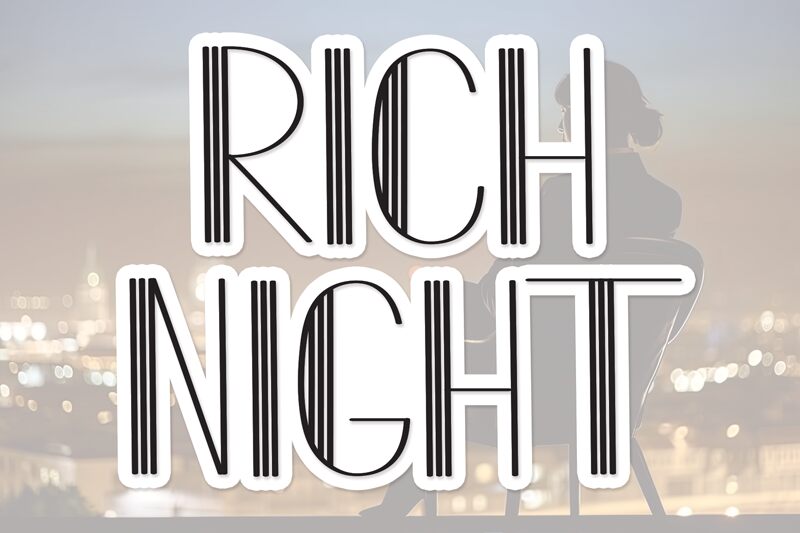
Rich Night
Rich Night font, designed by Scratchones, embodies a striking retro style that captures attention with its unique aesthetic. The condensed form gives it a sleek appearance, allowing it to make a bold statement without overwhelming the viewer. This font resonates with nostalgia while simultaneously offering modern versatility, making it suitable for a variety of design contexts.
Its clean lines and distinctive character add an element of sophistication to any project. Ideal for branding, poster designs, and signage, Rich Night thrives in environments that crave visual impact. Whether used for vibrant marketing campaigns or minimalist artistic expressions, this font stands out beautifully while maintaining clarity and charm. Its expressive quality ensures that it will leave a lasting impression wherever it's applied.